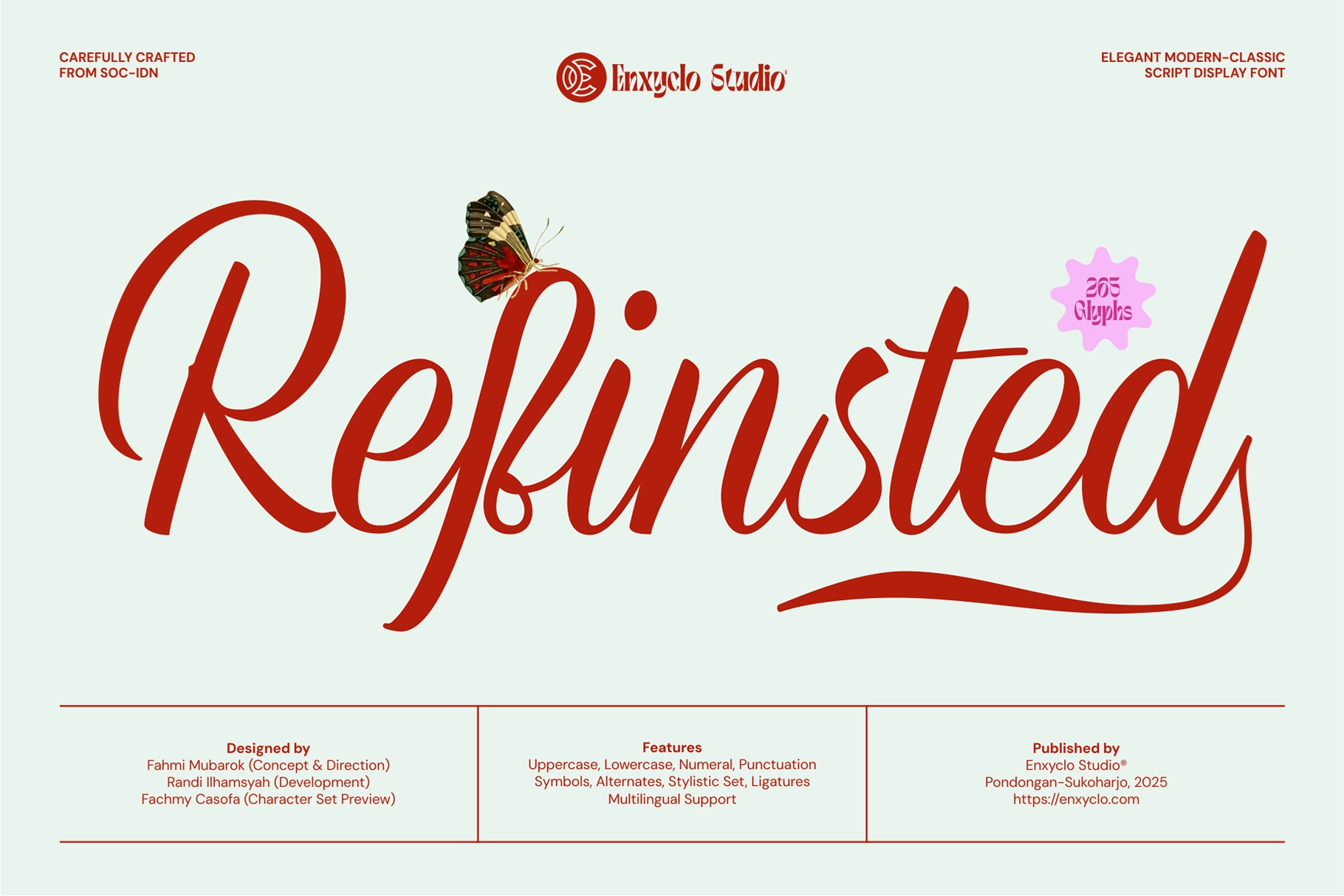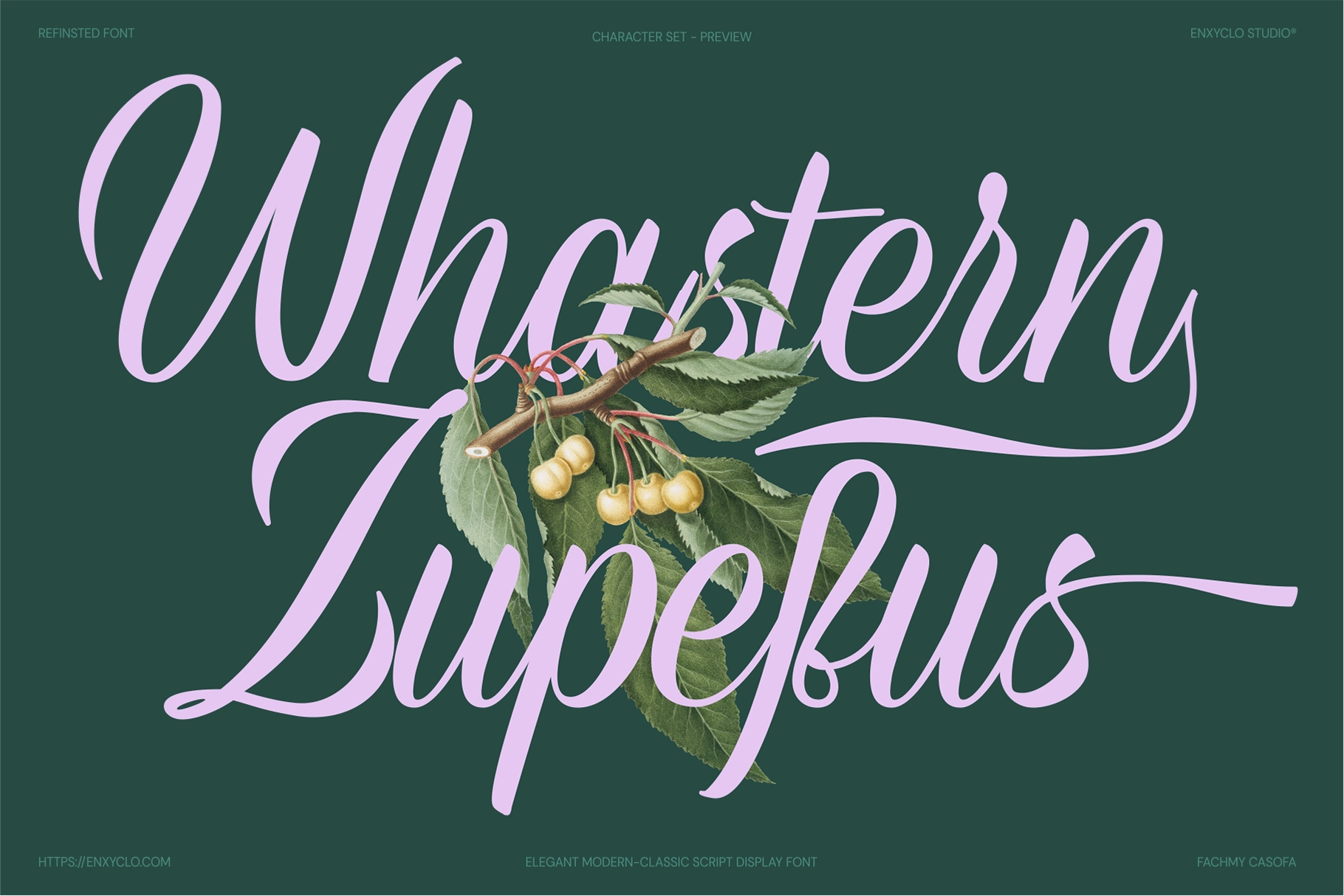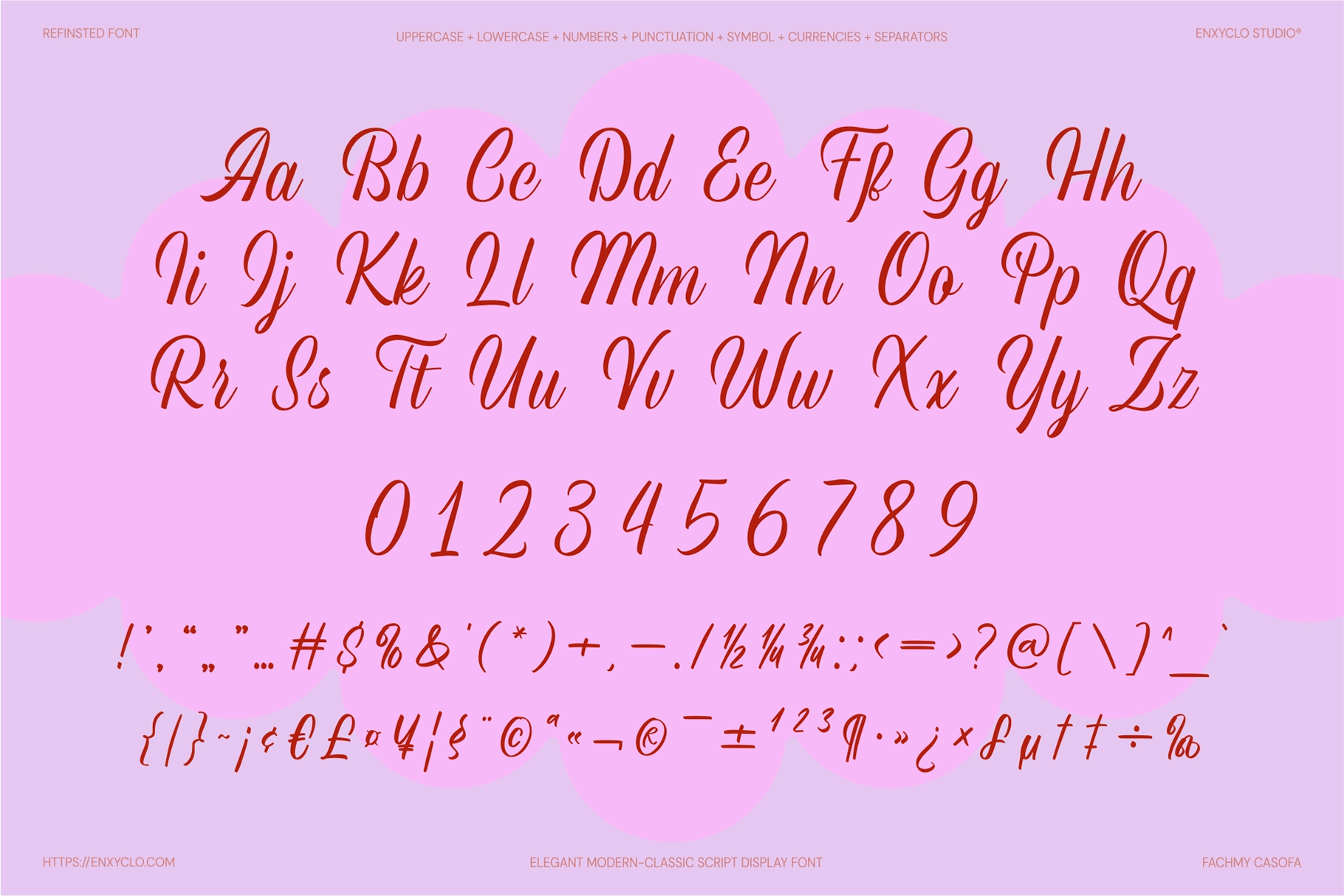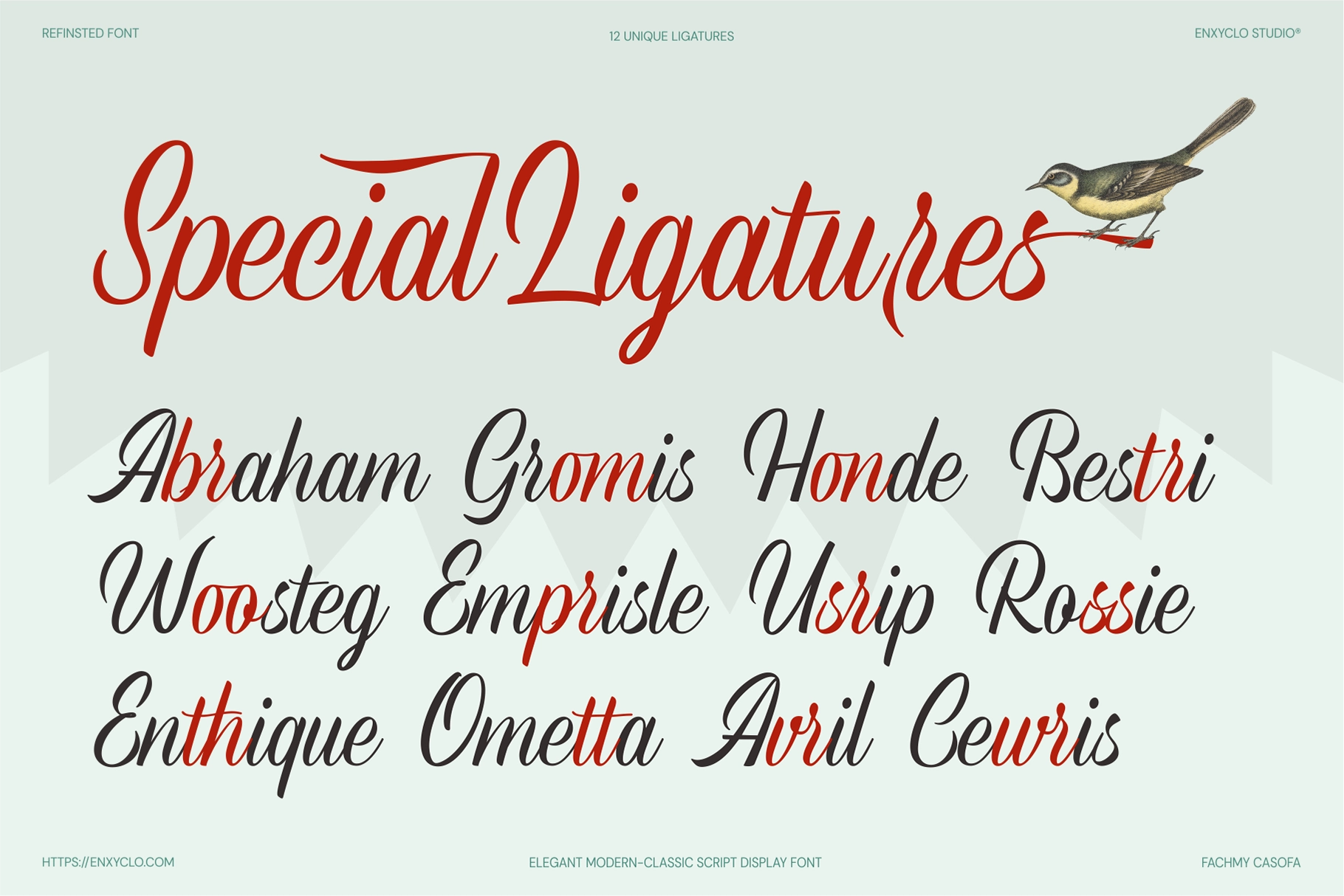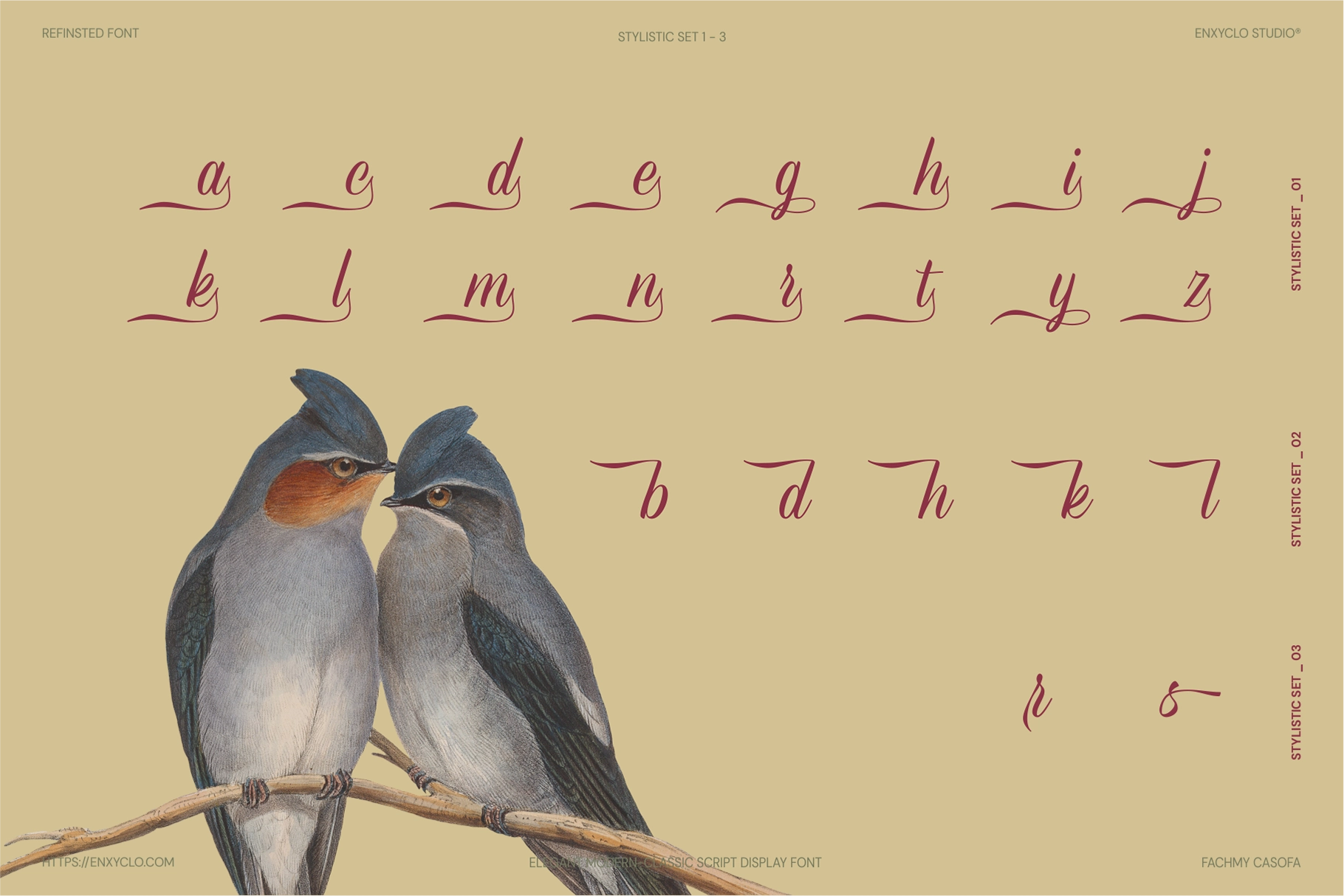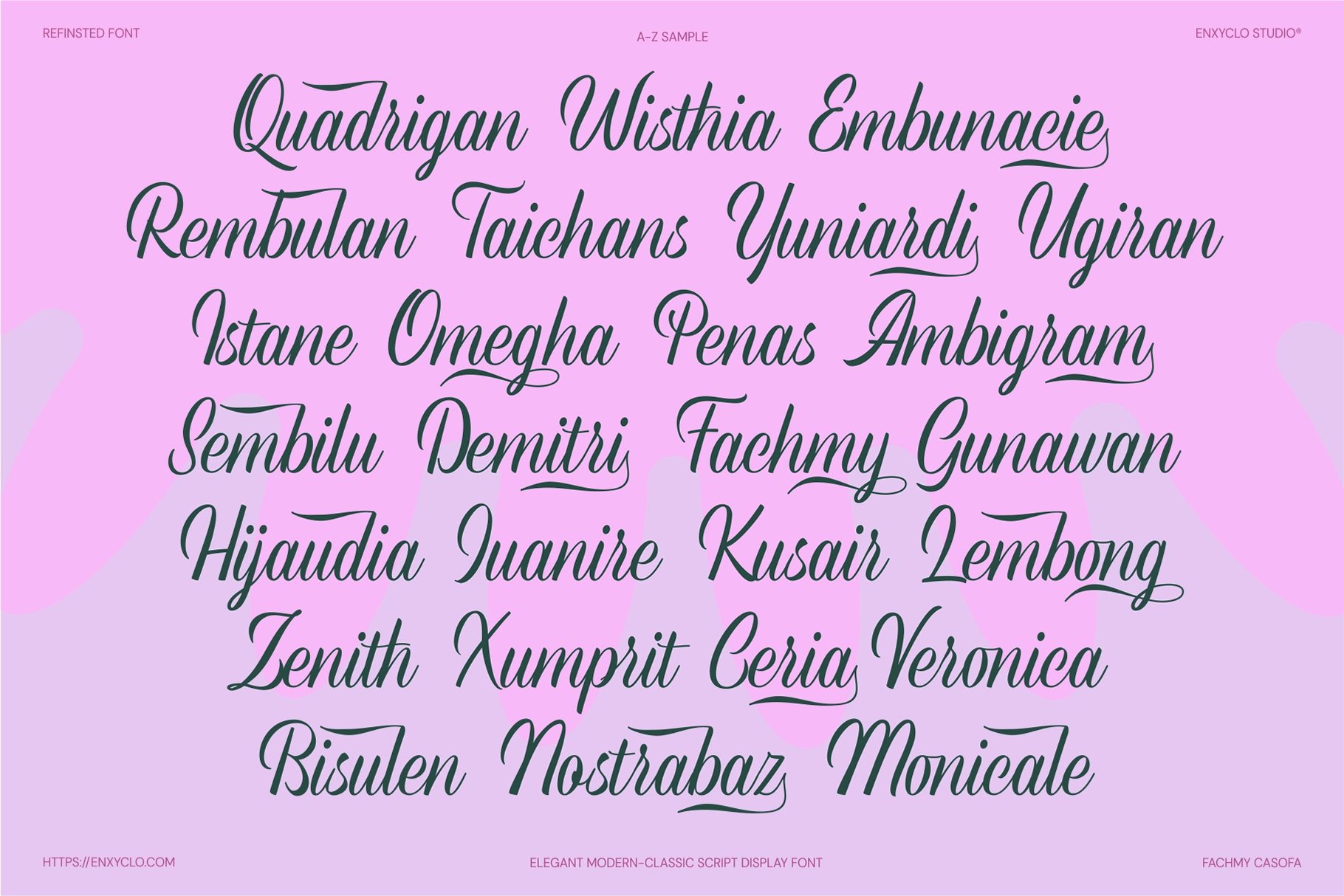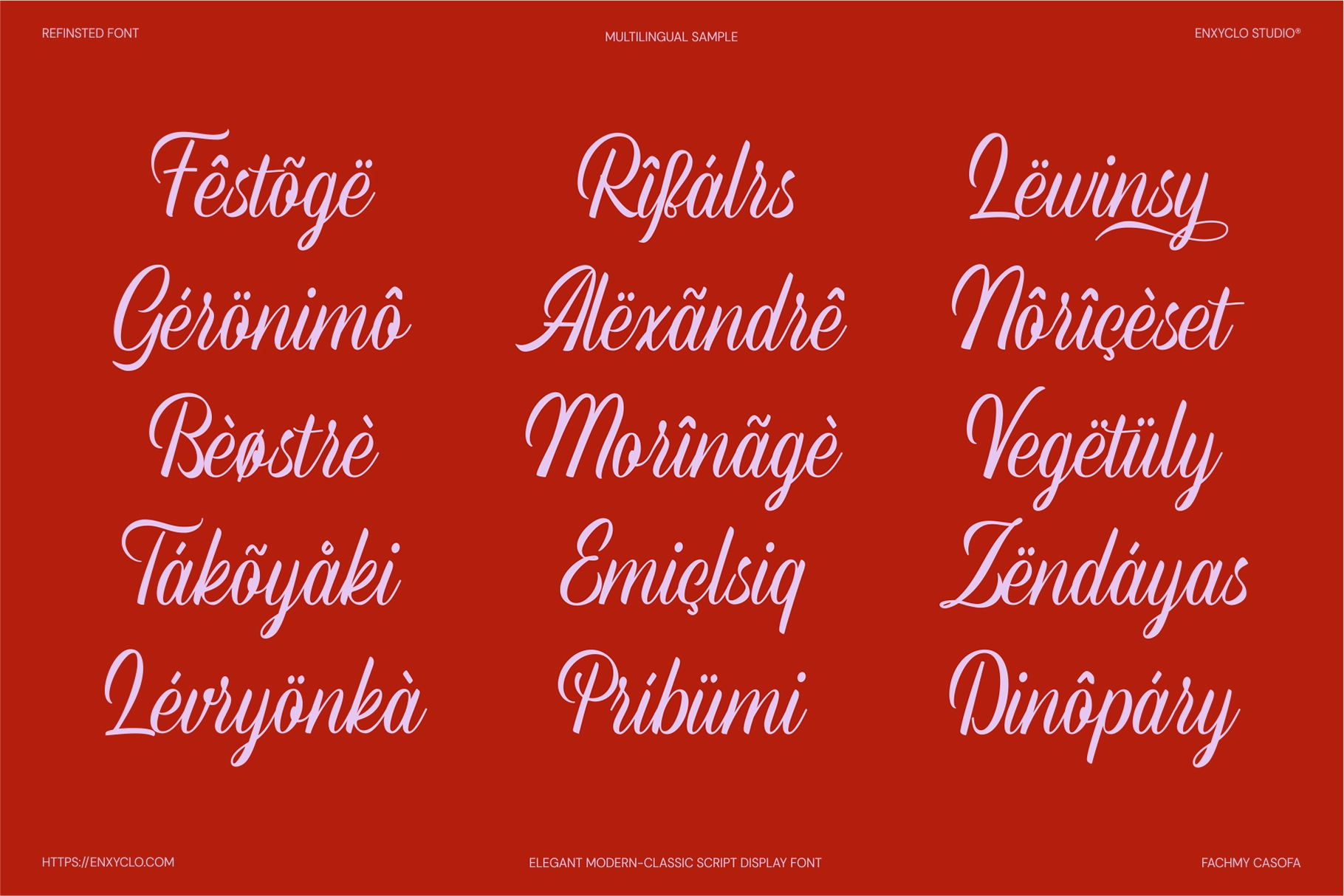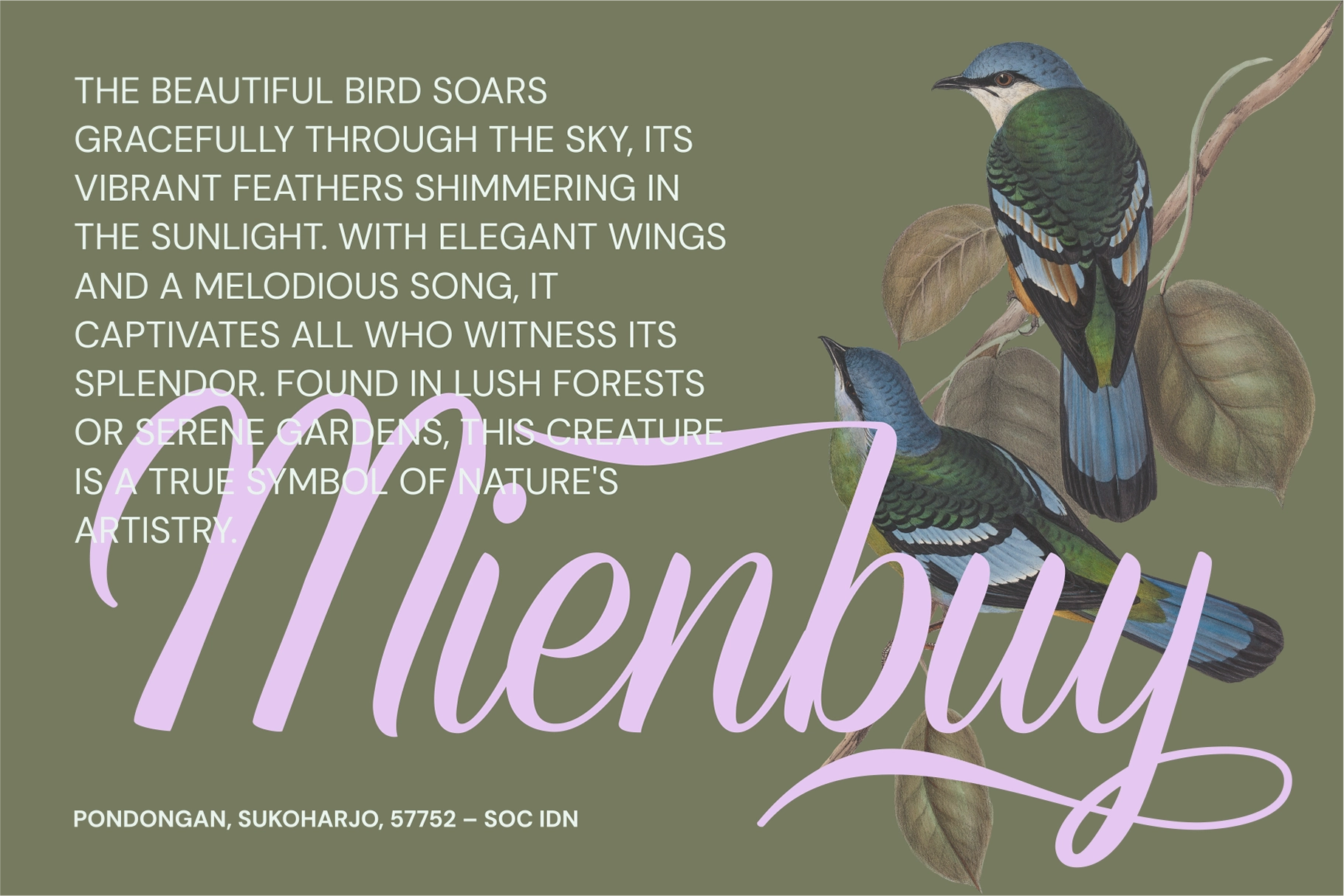
Refinsted - Modern Calligraphy Script Font
Refinsted - Modern Calligraphy Script Font is a refined script typeface that blends modern elegance with timeless calligraphic style. Designed with smooth flowing strokes and graceful letterforms, this font delivers a luxurious and artistic feel that elevates any design. Its balanced curves and expressive movement create a sophisticated visual rhythm, making it ideal for projects that require both beauty and personality.
Perfect for branding, packaging, editorial layouts, wedding invitations, and signature-style logos, Refinsted adds a distinctive touch of elegance to both print and digital designs. Whether used for high-end branding, fashion visuals, or inspirational typography, this font helps create polished and memorable compositions.
• 265 unique glyphs
• Stylistic sets 1–3
• 12 custom ligatures
• Uppercase & lowercase characters
• Numerals, punctuation, and symbols
• Multilingual language support